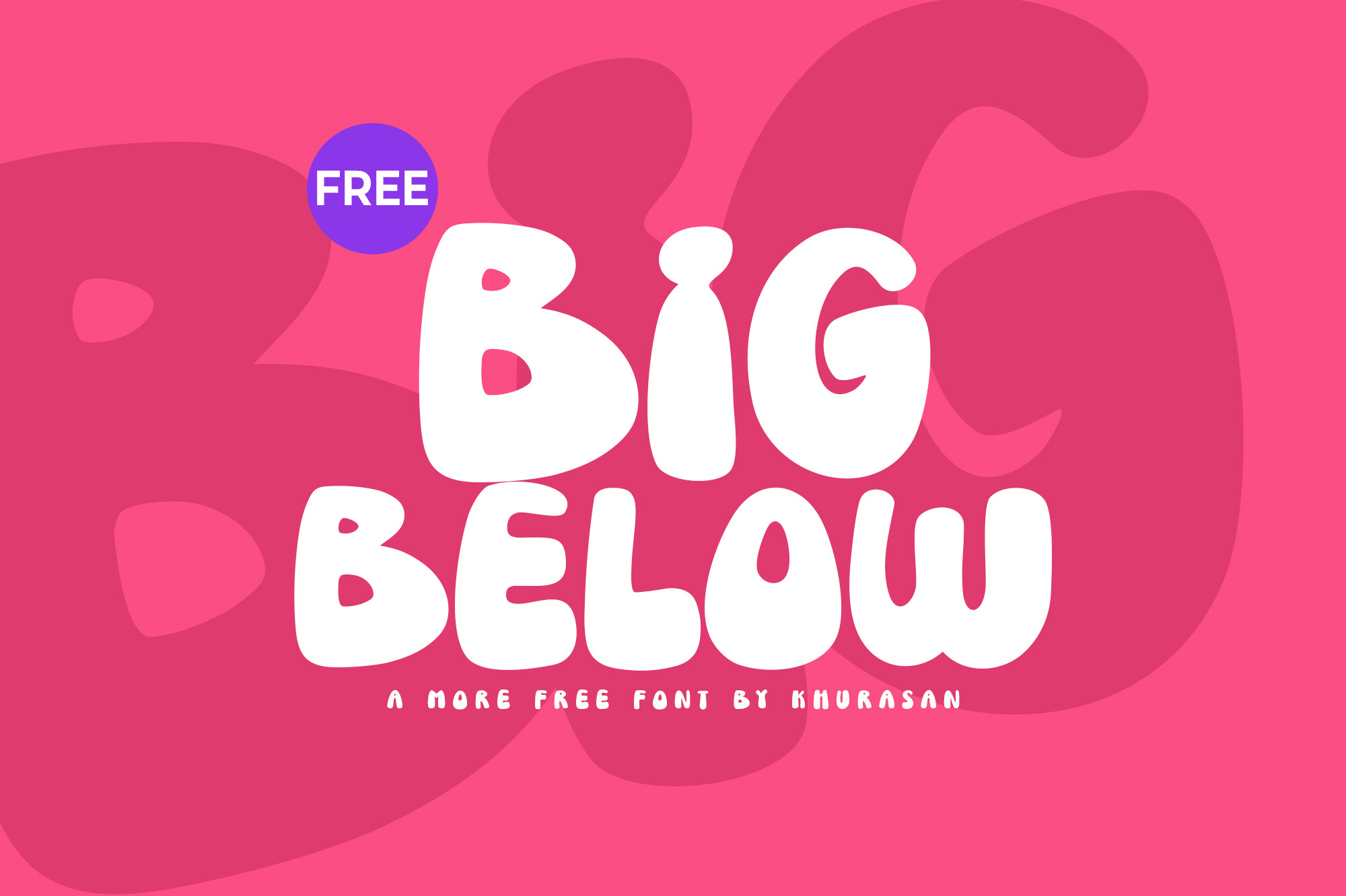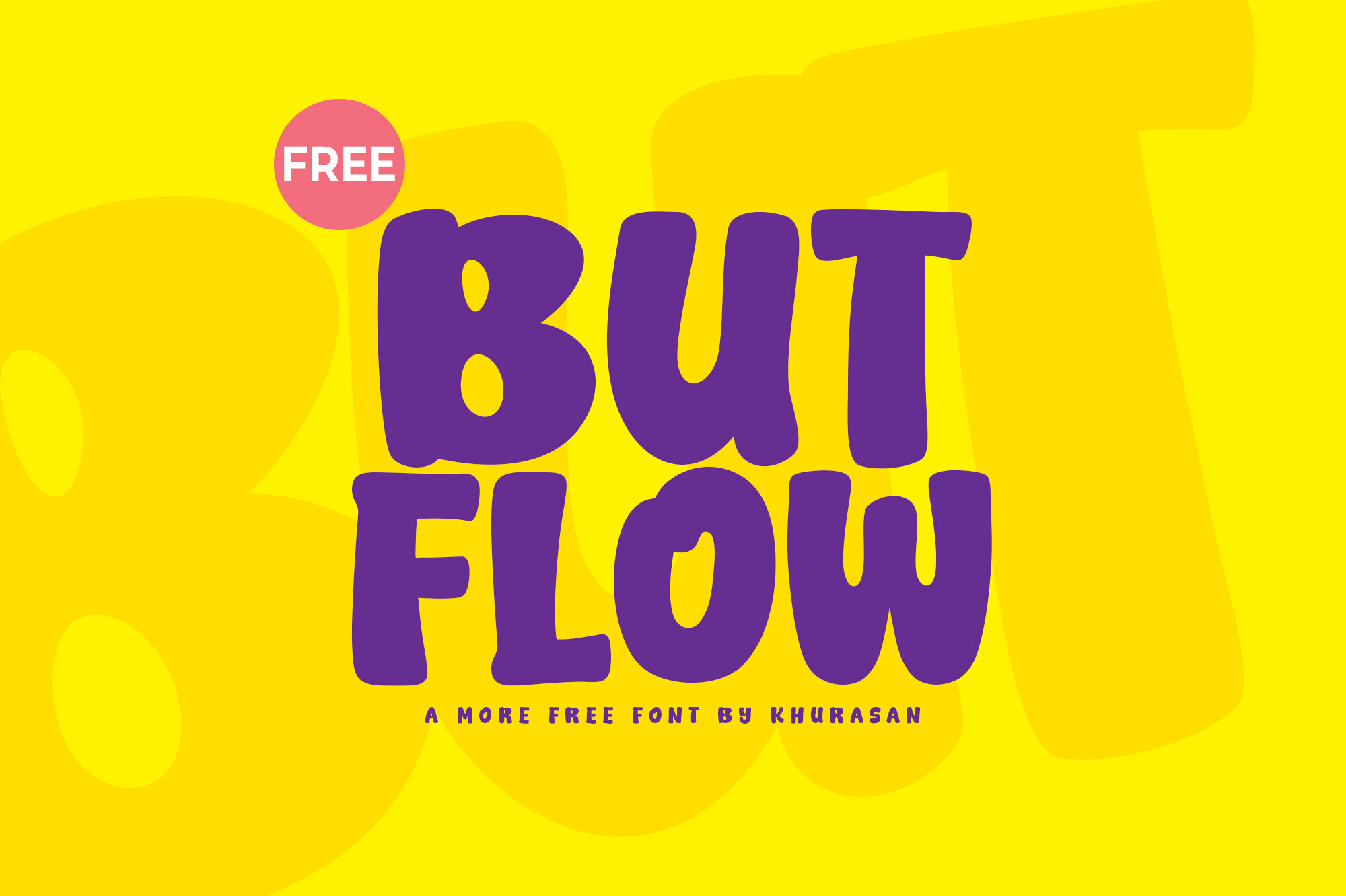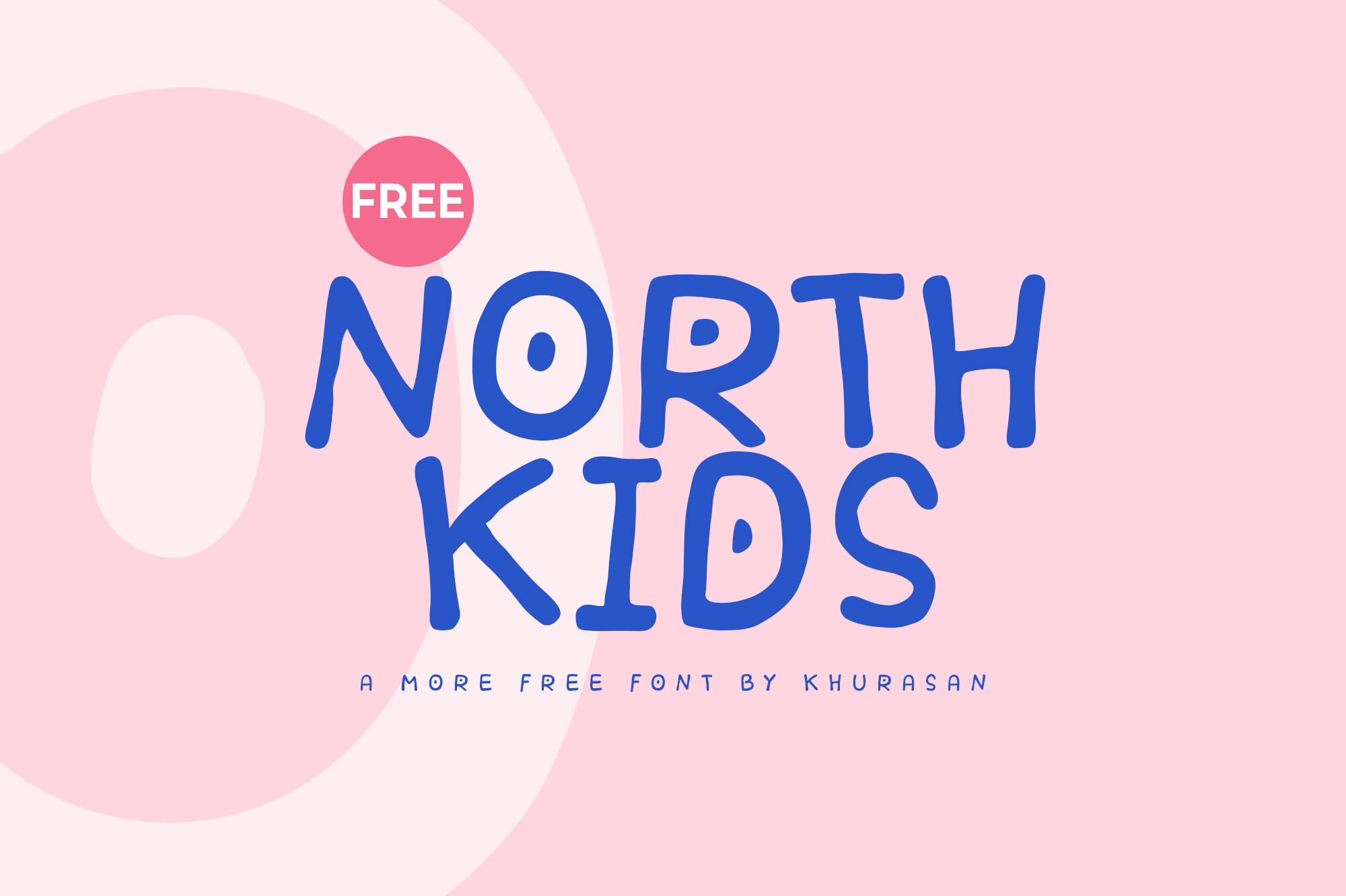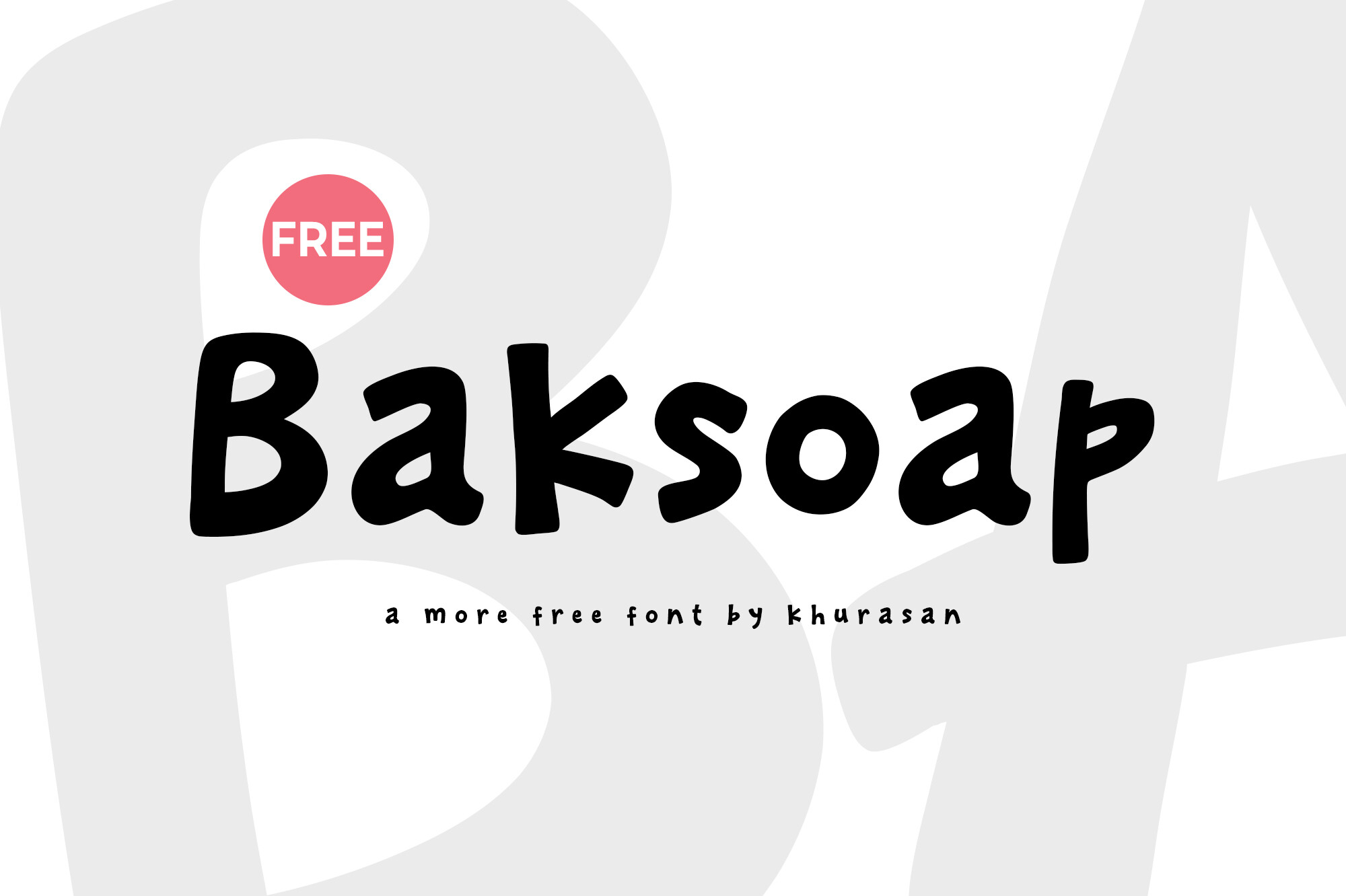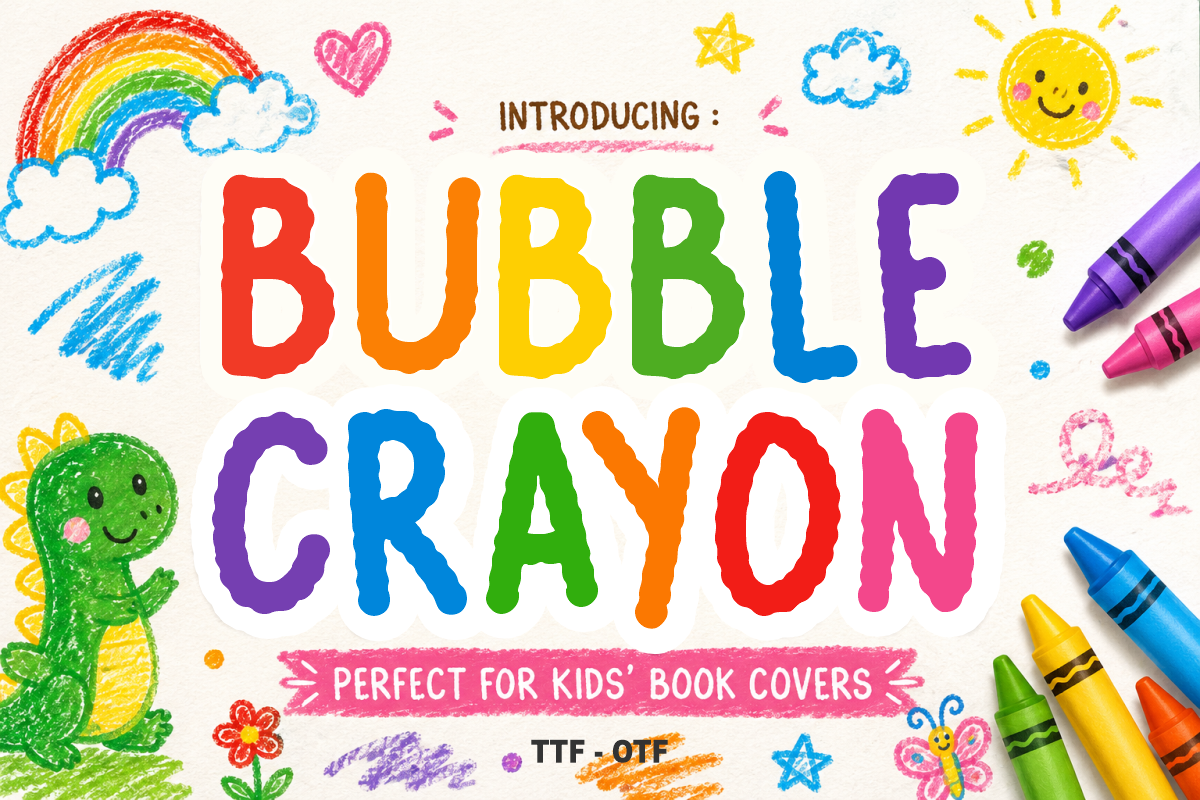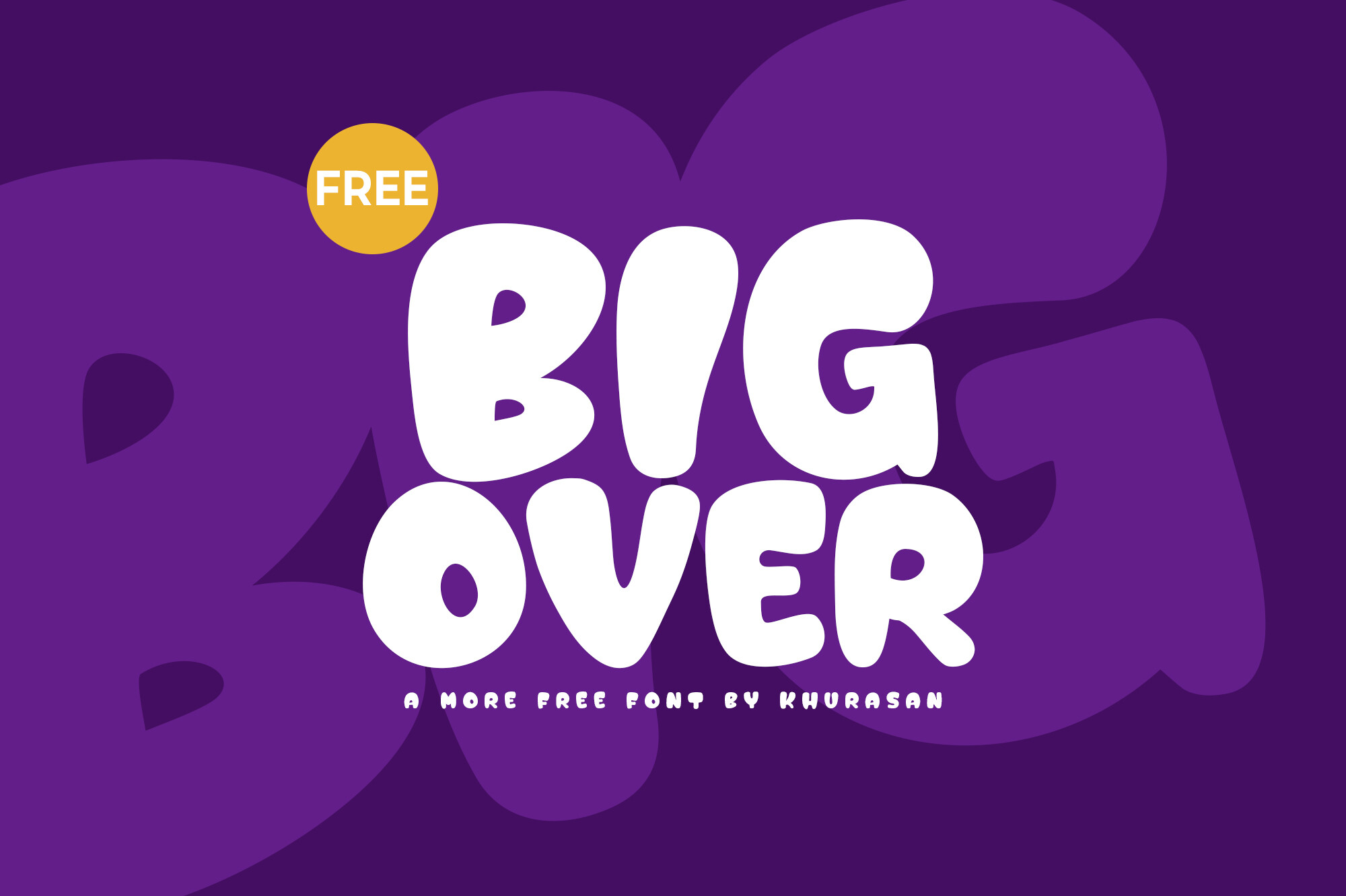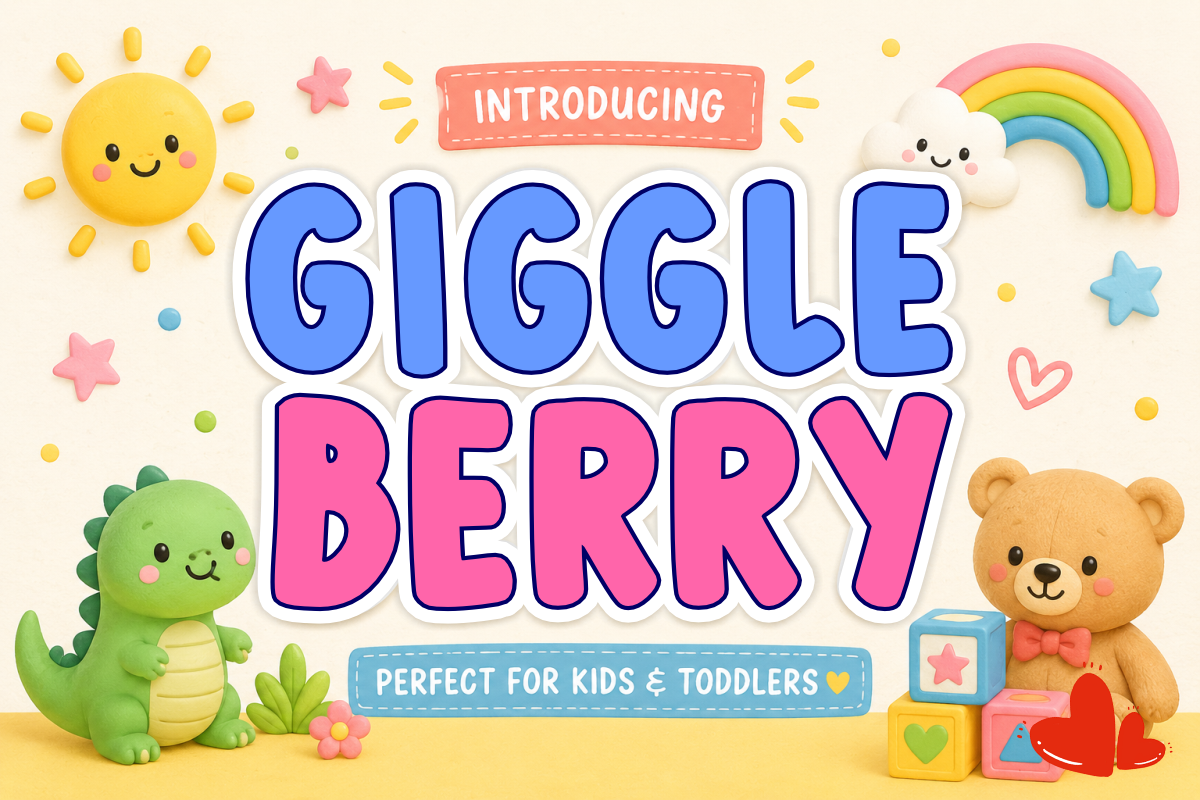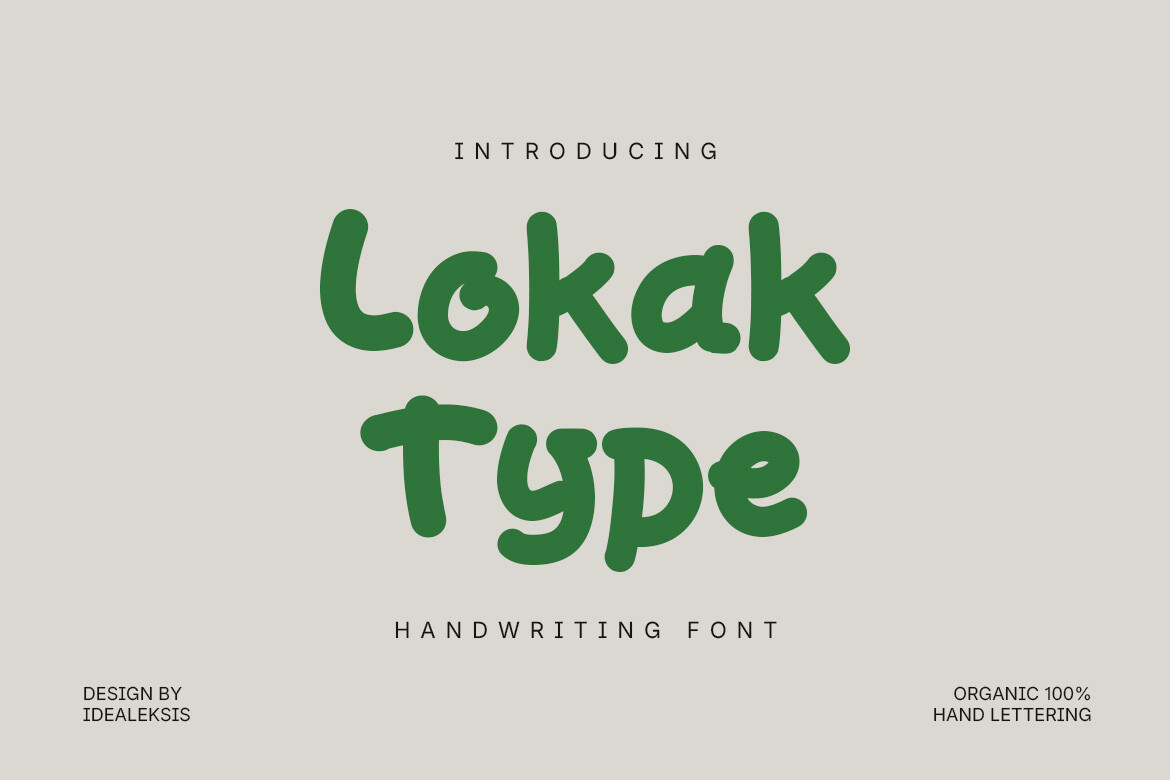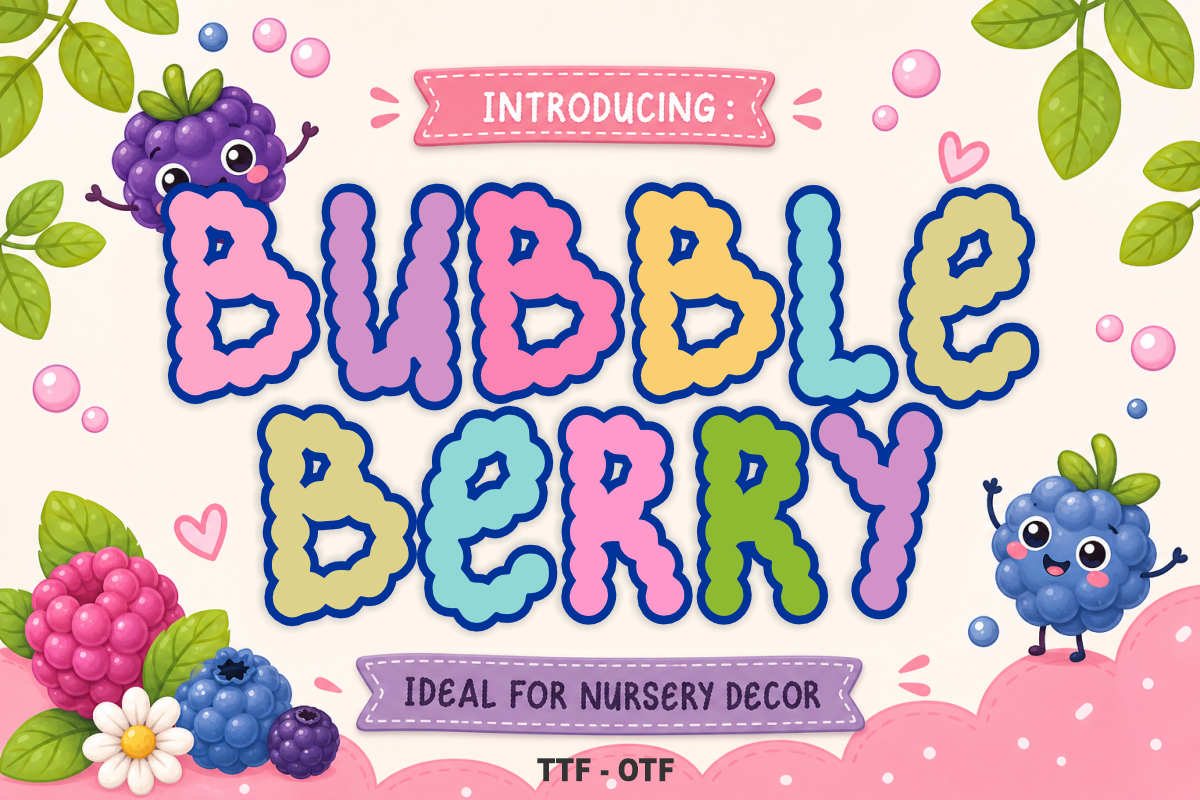
Looking for a typeface that can truly capture the essence of your brand or project? Whether you are crafting whimsical nursery décor or designing an epic fantasy novel cover, typography is key. We have curated a selection of free fonts designed to add character and personality across every imaginable medium. From carefree handwritten styles that feel organic and playful, perfect for modern lifestyle brands, to dramatic medieval scripts exuding ancient grandeur, there is a typeface waiting to elevate your visual storytelling. These versatile options ensure effortless legibility while providing unique aesthetic flair for print, digital media, and physical crafts. This collection features options ideal for crafters, designers, and creative entrepreneurs looking for high-impact, commercially viable design assets.
Bigbelow
Looking to incorporate effortless flair into your design work? The Bigbelow font is a wonderfully expressive display typeface ideal for conveying casual energy. Its modern, marker-like strokes combine fluid curves and organic character shifts with playfully mixed baselines that imitate spontaneous handwriting. Use Bigbelow when branding requires approachability, whether designing packaging for artisan products or setting catchy titles in literature. Its unmatched legibility makes it a powerhouse choice for crafting standout headlines on social media graphics, greetings cards, or small business labels.
Buflow
Searching for unique branding typefaces with a distinct hand-lettered aesthetic? Buflow, a casual yet highly expressive display typeface, provides the perfect touch of approachable warmth. Ideal for indie lifestyle branding or packaging that requires a human element, its modern marker strokes balance organic curves effortlessly. Its playfully inconsistent baselines and smooth weight ensure impeccable readability when setting custom book titles or designing heartfelt greeting cards. Utilize Buflow to elevate high-impact social media graphics with genuine flair, achieving instant connection without sacrificing professional legibility for your design projects.
North Kids
Bring vibrant charm and handcrafted character to any design project using North Kids, an outstanding playful display typeface. Featuring deliberately irregular baselines, uneven strokes, and distinct marker-dot counters, it captures the joy of natural youth illustration and craft activities. Designers favor this unique handwriting font for projects requiring whimsical appeal, such as baby artwork print titles or storybook chapter headings. Utilizing North Kids makes creating compelling social media graphics for educational events or branding signage that needs a nostalgic, playful aesthetic exceptionally straightforward. Pair it with complementary sans-serifs to perfect designs spanning kid's book illustrations through independent toy brand promotion.
Baksoap
Enhance your design work with Baksoap, a unique display font that delivers genuine, expressive character. Its fluid script perfectly captures the organic energy of handwriting, offering varied baselines and delightful variations in marker weight. Perfect for creating charming headlines, handcrafted packaging designs, or vibrant social media graphics, Baksoap provides an effortless blend of style and superb readability. Incorporating this distinctive type on branding projects elevates even simple materials, instantly imbuing your design with casual appeal and genuine artistic flair.
Bubble Crayon
Embrace the pure delight of childhood artistry with Bubble Crayon, a chunky and textured display typeface designed to look like actual colored wax crayons. This highly engaging font is perfect for creating eye-catching, kid-friendly designs across various media. Ideal for branding educational materials, publishing playful book titles, or crafting inviting labels that mimic genuine, handmade chalk art. Its playful, buoyant style effortlessly conveys fun and joy, making headlines impossible to ignore for anyone aiming for a nostalgic or organic aesthetic in their work.
Noctura Black
Need an intense typeface evoking historical romance or deep lore? Noctura Black brings forth the commanding aesthetic of Gothic blackletter scripts combined with opulent, ancient-styled calligraphic curves. Use it on dramatic book covers, packaging demanding a medieval or fantastical vibe, grand stationery for specialized events, or titles related to dark fantasy genres and mythology. Its distinctive ornaments offer instant old-world richness, making designs look crafted from genuine aged manuscripts or rediscovered royal decree scrolls. Achieve striking narrative drama instantly with this bold gothic choice.
Big over
Achieve effortless brand charm using Bigover, a distinct handwritten display typeface designed for creative flare. Ideal as large headlines, this marker-style font gives professional appeal to indie branding and boutique product packaging labels alike. Because of its relaxed, casual rhythm—defined by varied case height and playful curves—Bigover lends authenticity to book titles, invitations, or digital art quote cards. Integrate Bigover typography where approachesibility is key, providing immediate recognition in designs for craft goods or artisanal marketplaces while keeping your overall layout light and naturally expressive.
Giggleberry
Bringing maximum fun to educational signage or sweet celebratory party decor is effortless with Giggleberry. This bold and bubbly cartoon typography captures pure childhood delight, ensuring your project immediately stands out while maintaining excellent readability across print and screen media. Crafters especially love this typeface due to its clean, optimized vector paths, which provide smooth cutting edges on vinyl materials using Silhouette and Cricut machines. If your design requires a cheerfully impactful header that works wonderfully with kids' themes or joyful occasions, consider this perfectly rounded display font.
Lokak Type
Lokak Type offers an engaging display font with rounded, bulbous forms, capturing a delightful hand-lettered energy. Its consistent boldness lends itself to high impact in various branding needs. Because of its thick, curved strokes, it instantly provides an organic and approachable aesthetic. This friendly typeface shines in product packaging for artisanal or natural brands, making headers feel charming and personal. It’s perfect for creative editorials seeking warmth while needing substantial readability.